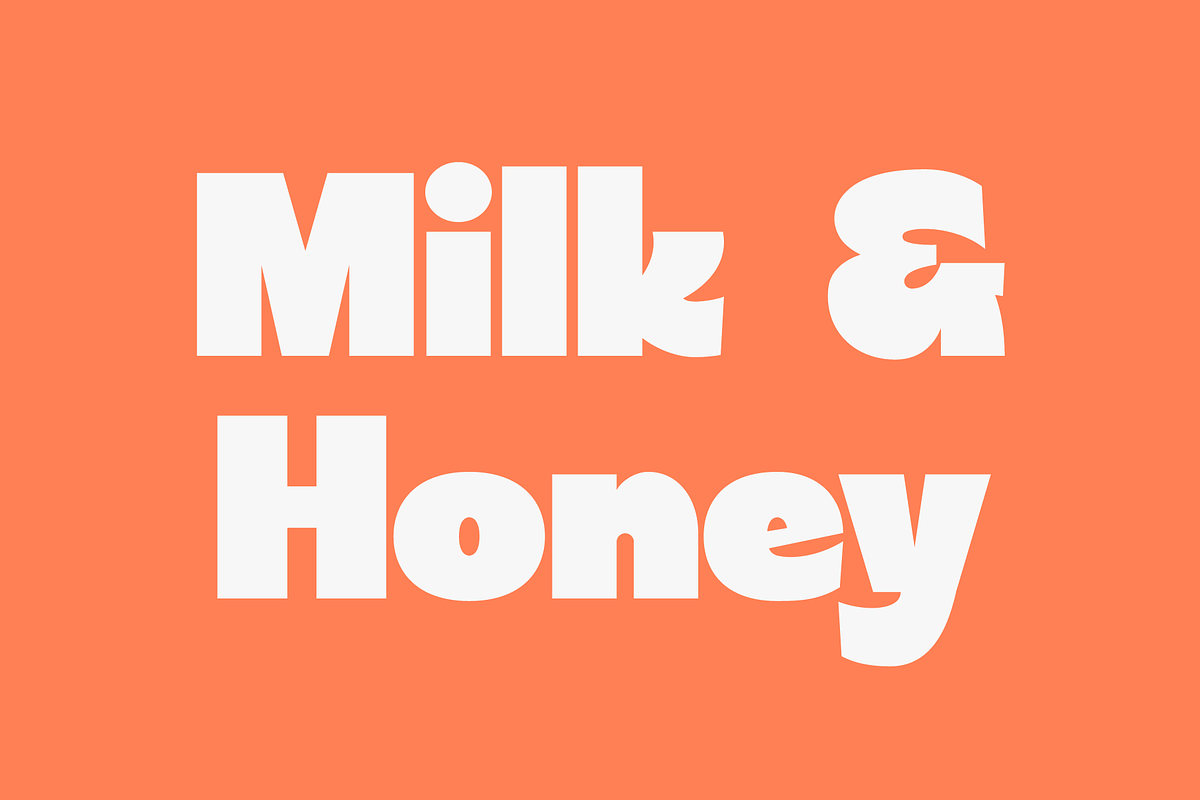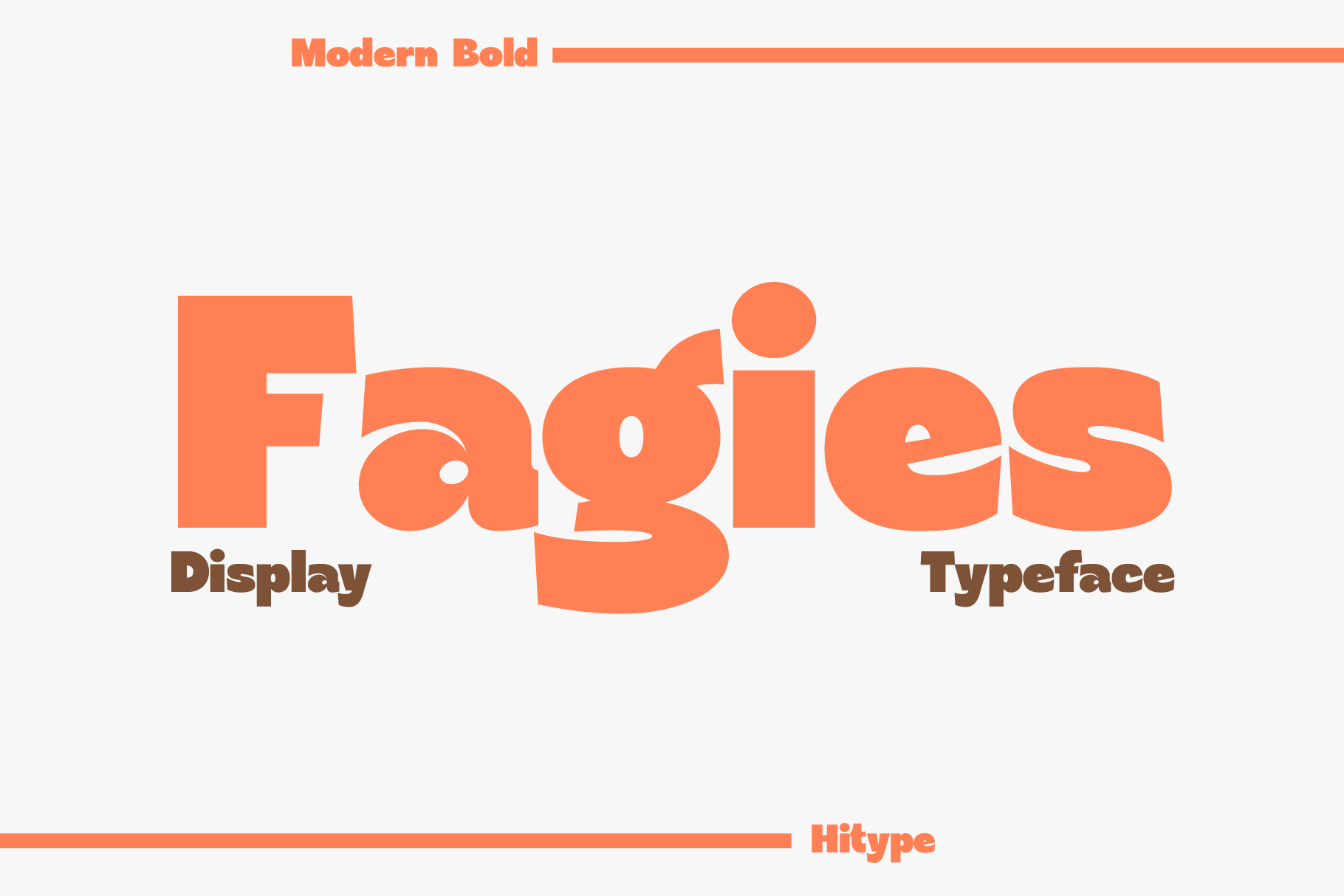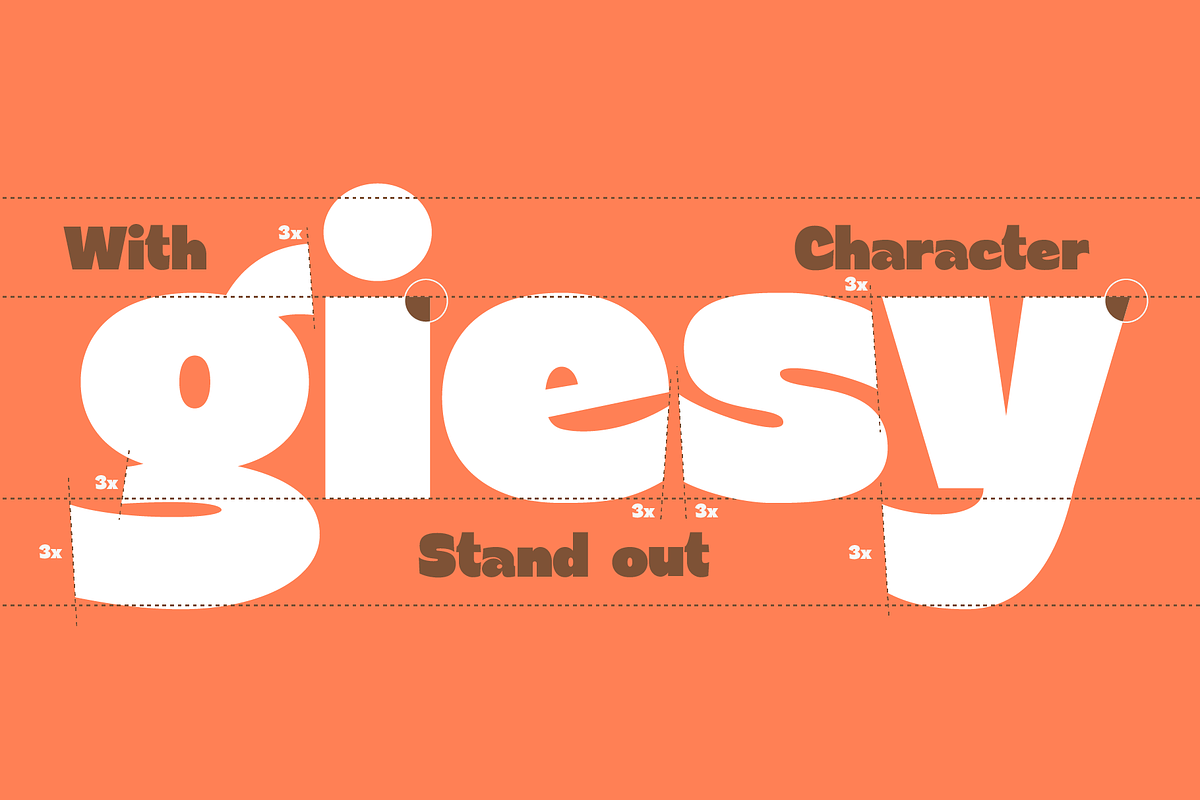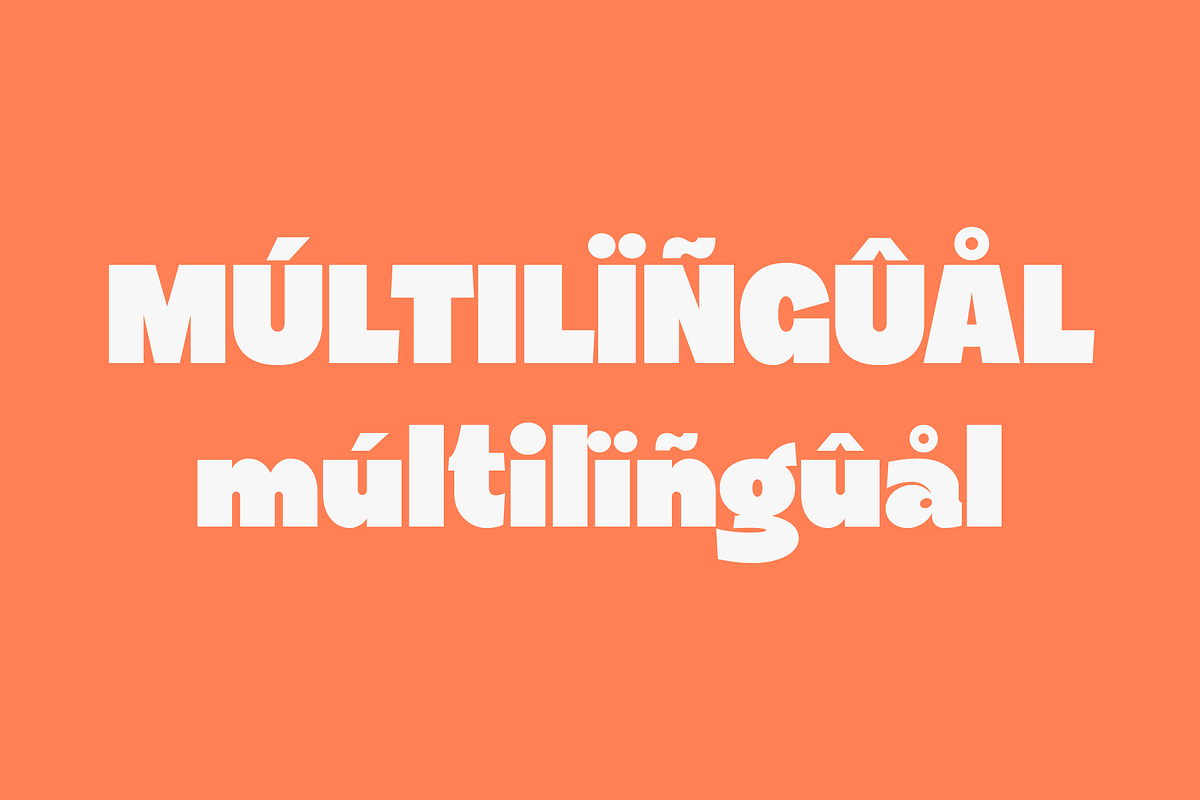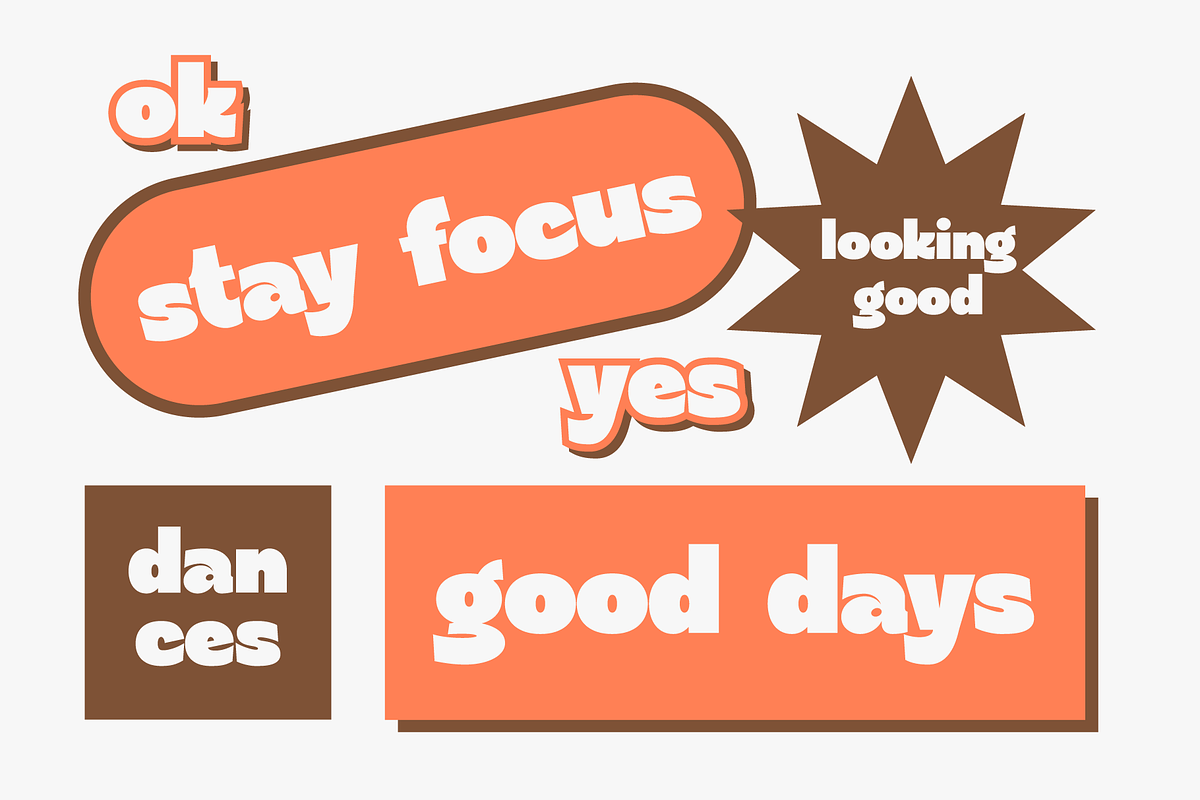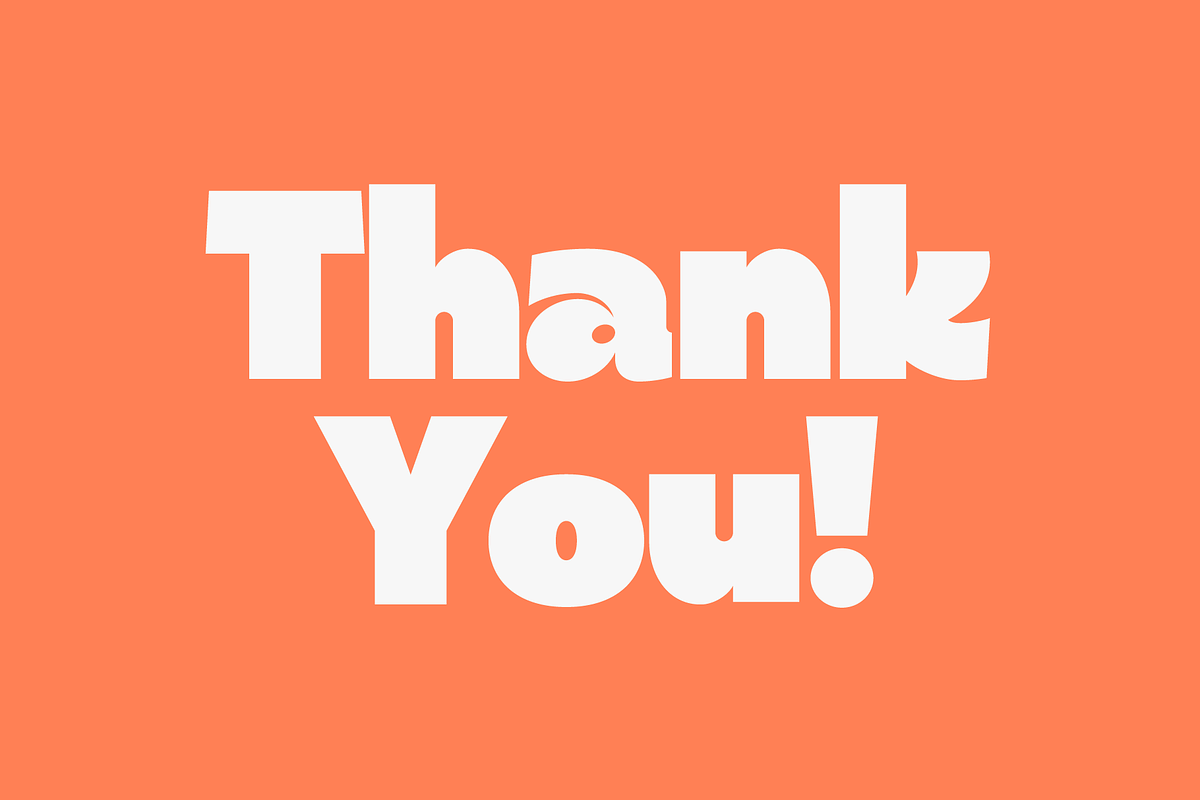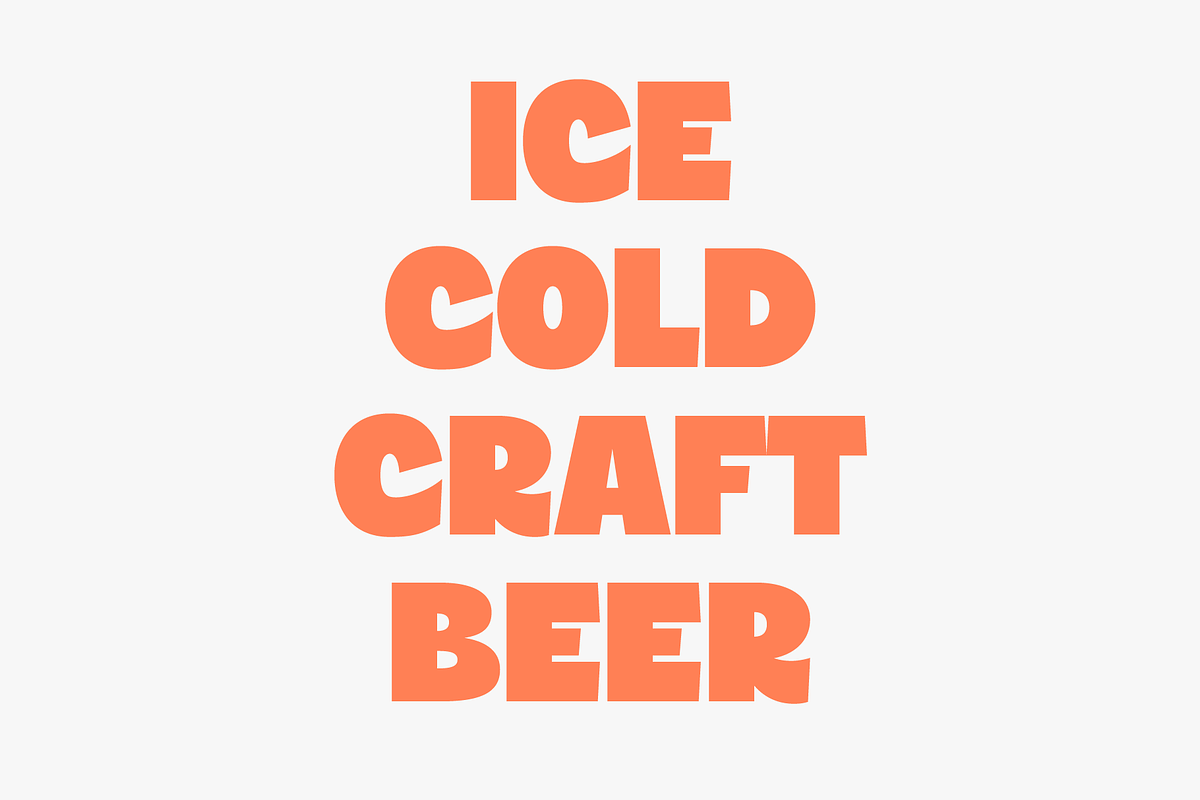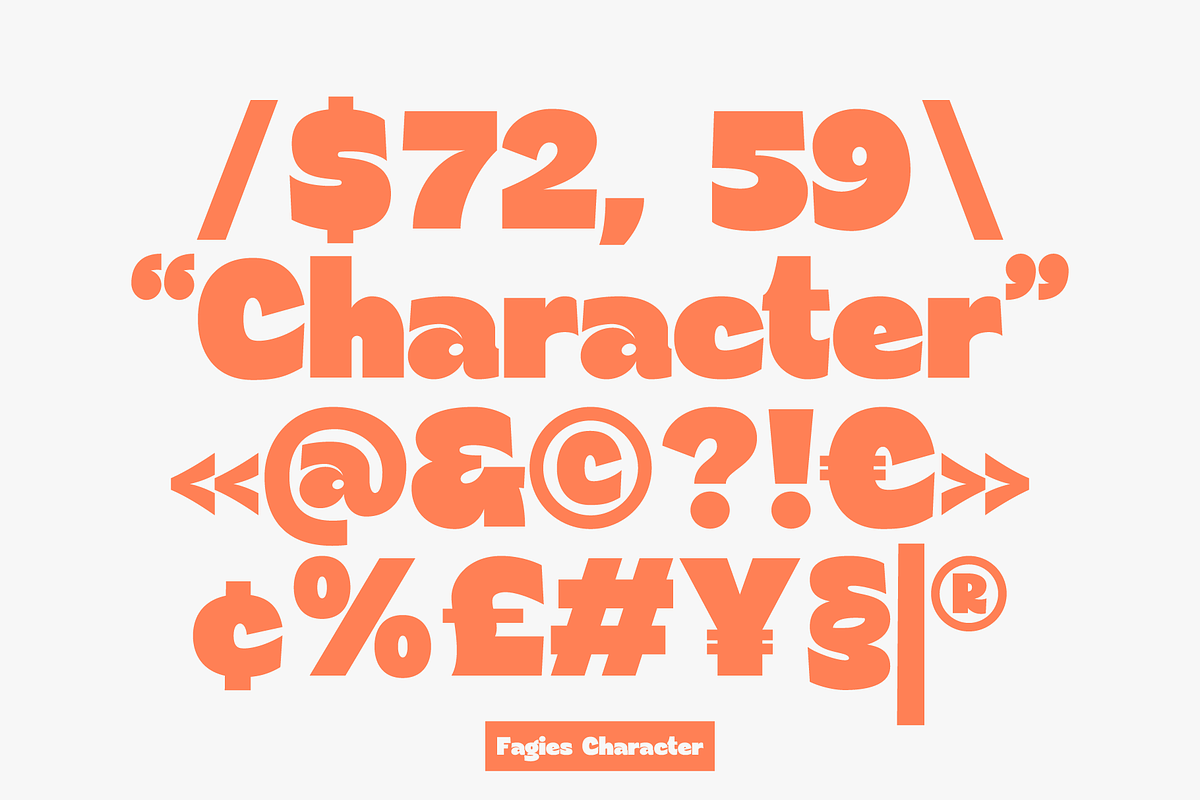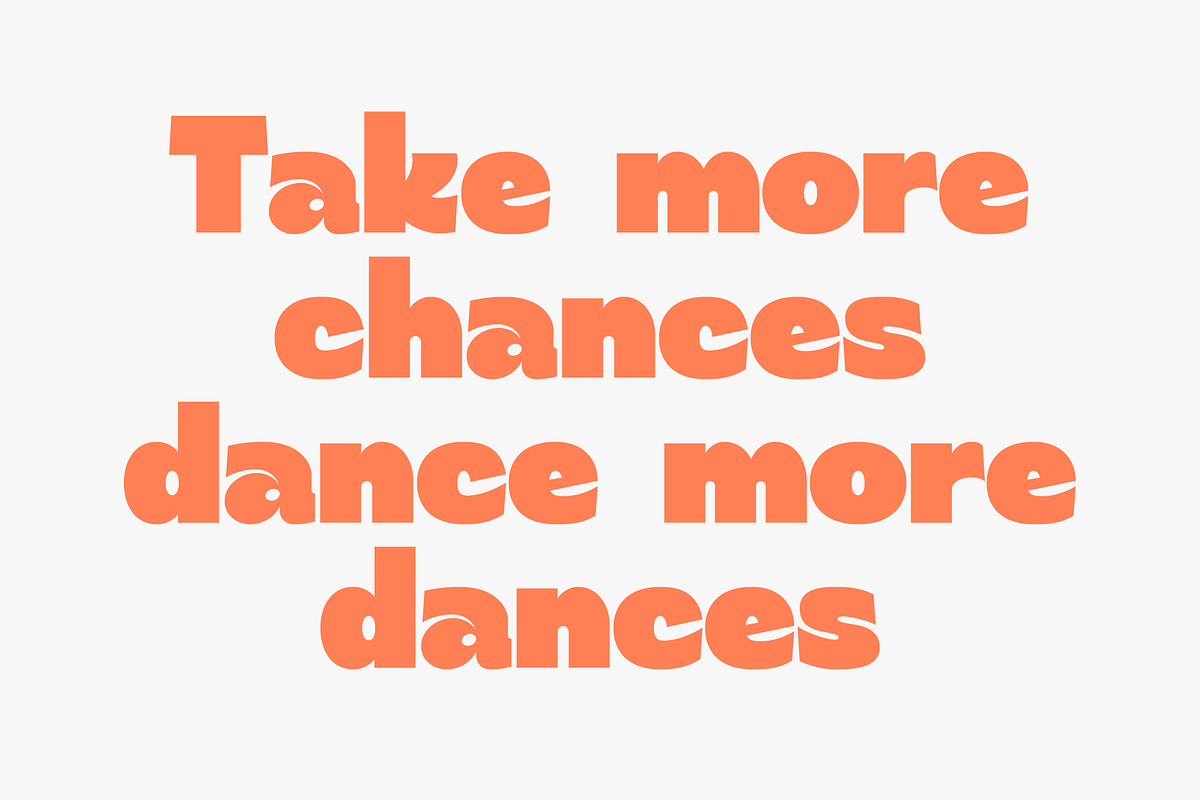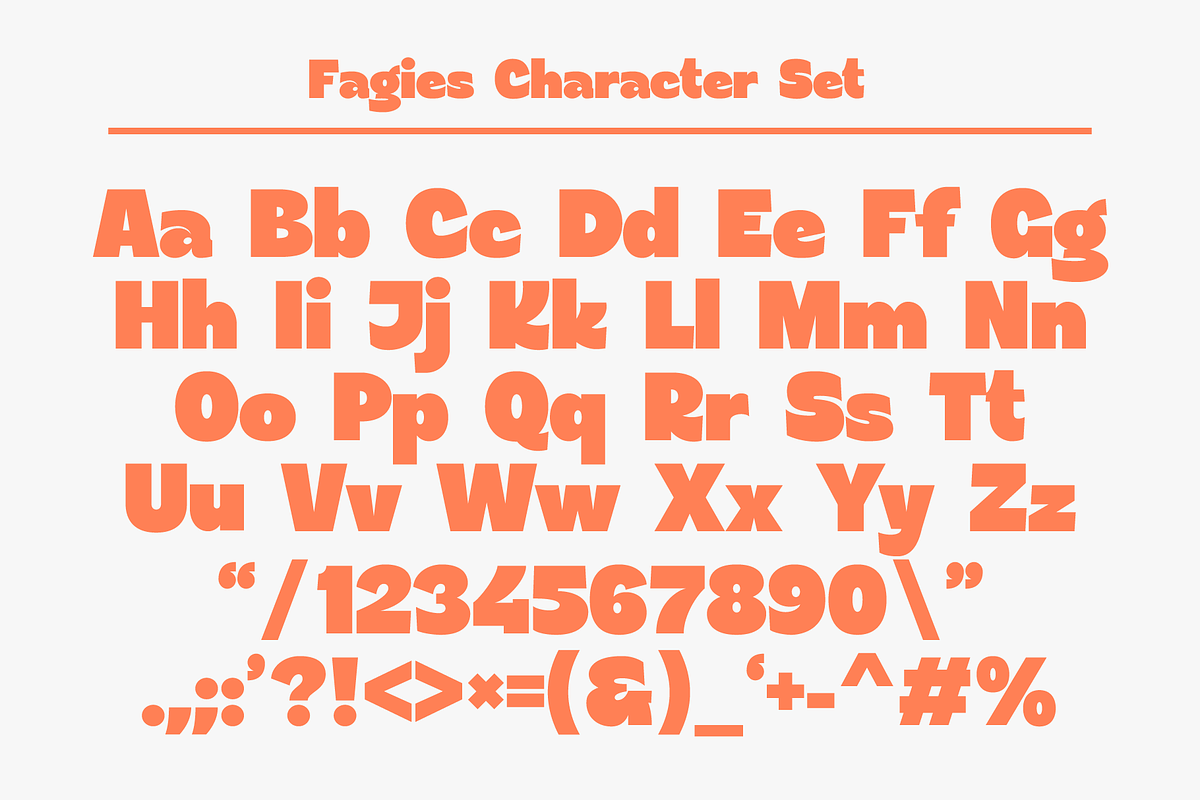
Fagies Display Typeface - Hitype
Fagies is a modern bold display typeface with playful shapes and strong personality. Designed to make headlines pop and messages stand out, Fagies combines chunky proportions with quirky letter details, creating a unique and friendly vibe. Perfect for posters, packaging, social media, logos, and any project that calls for bold creativity and eye-catching style. With its fun yet versatile character, Fagies helps your designs radiate positivity and charm in both print and digital works.
Features: Uppercase & lowercase letters - Numbers & punctuation - Multilingual support - Open Type - Bold modern style with playful curves - Perfect for display, branding, and packaging